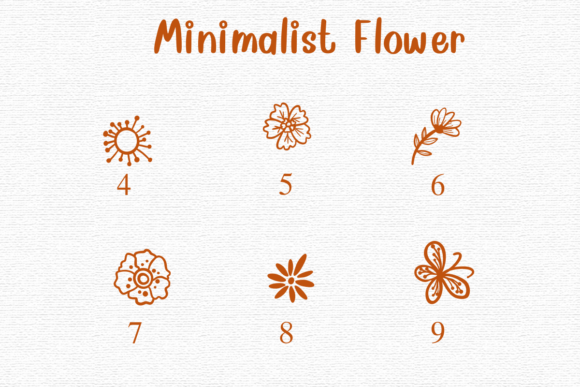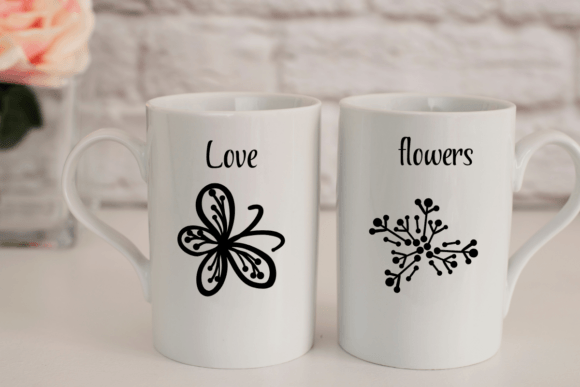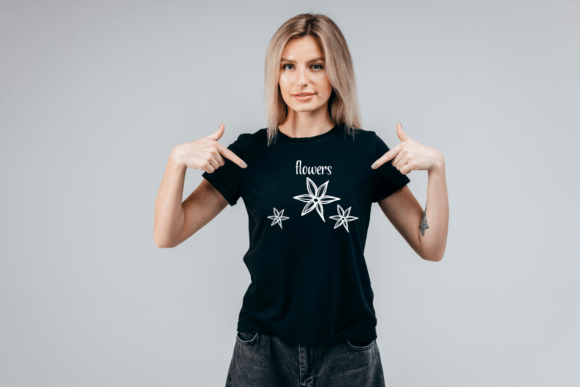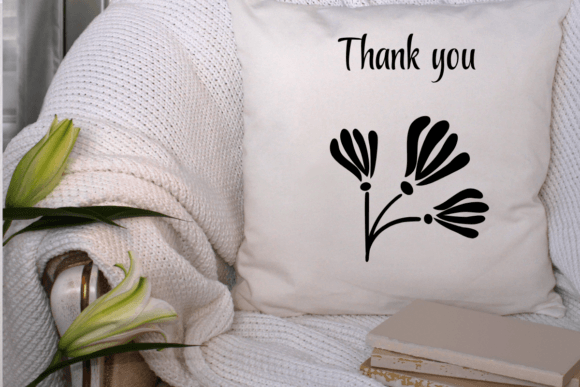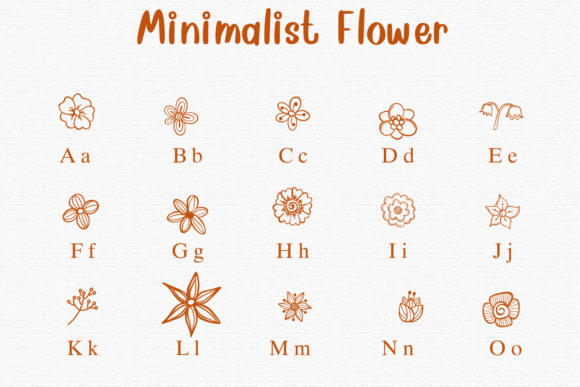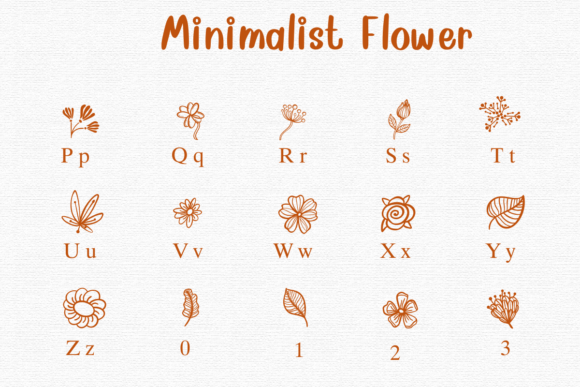
Introduction to Minimalist Flower Font
Minimalist Flower is a dingbat font that features simple, clean, and elegant designs of various flowers.
It’s perfect for adding a touch of nature to your projects with a minimalist style .
Key Features of Minimalist Flower Font